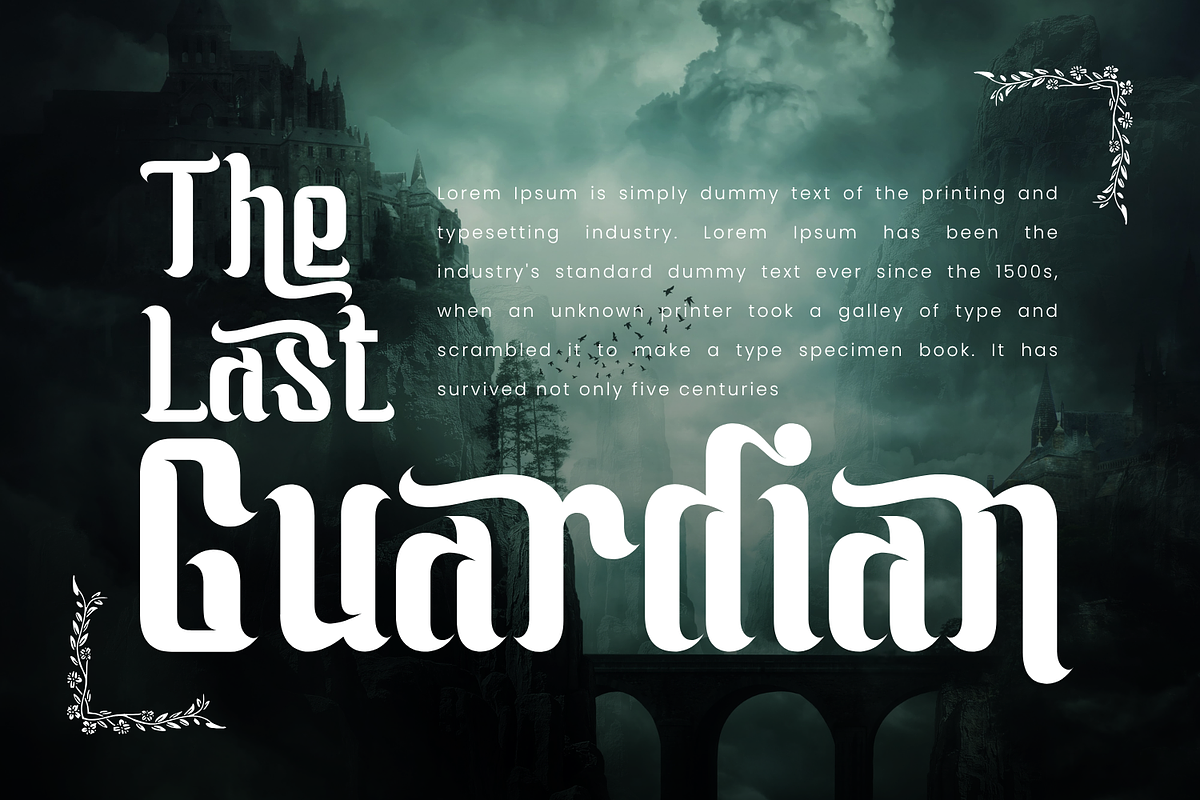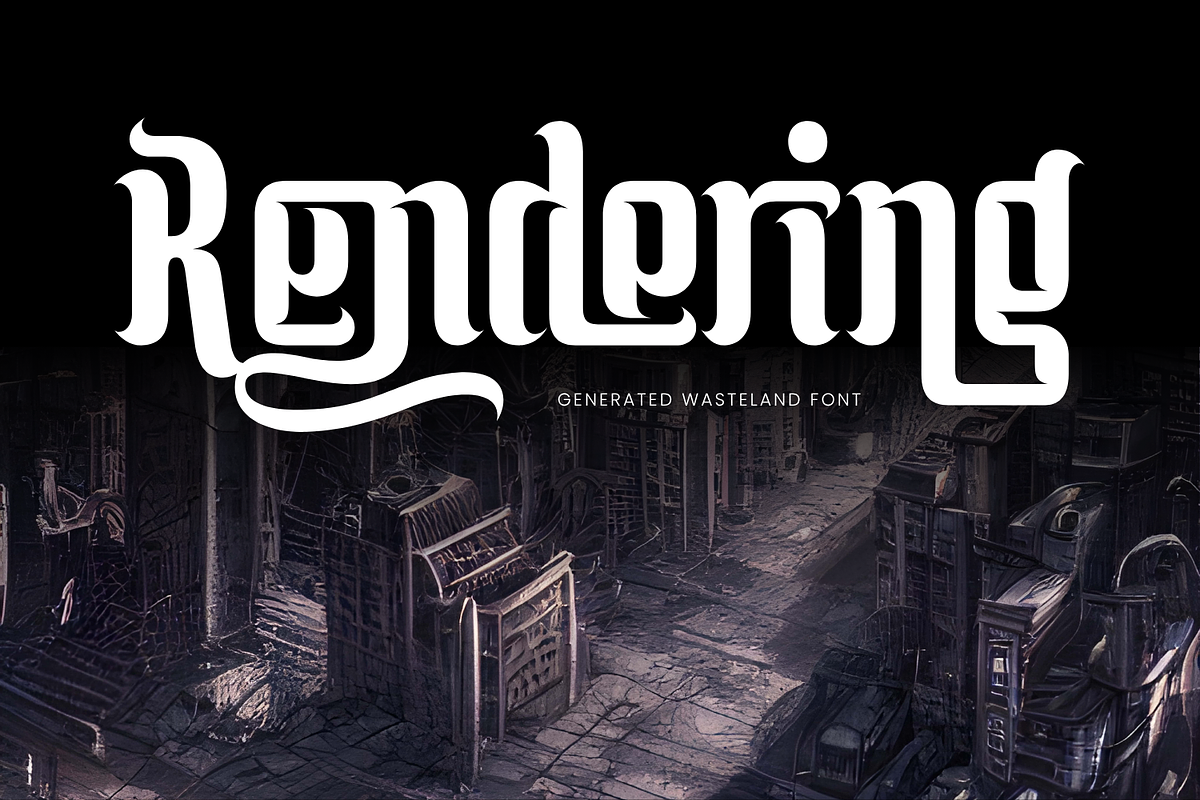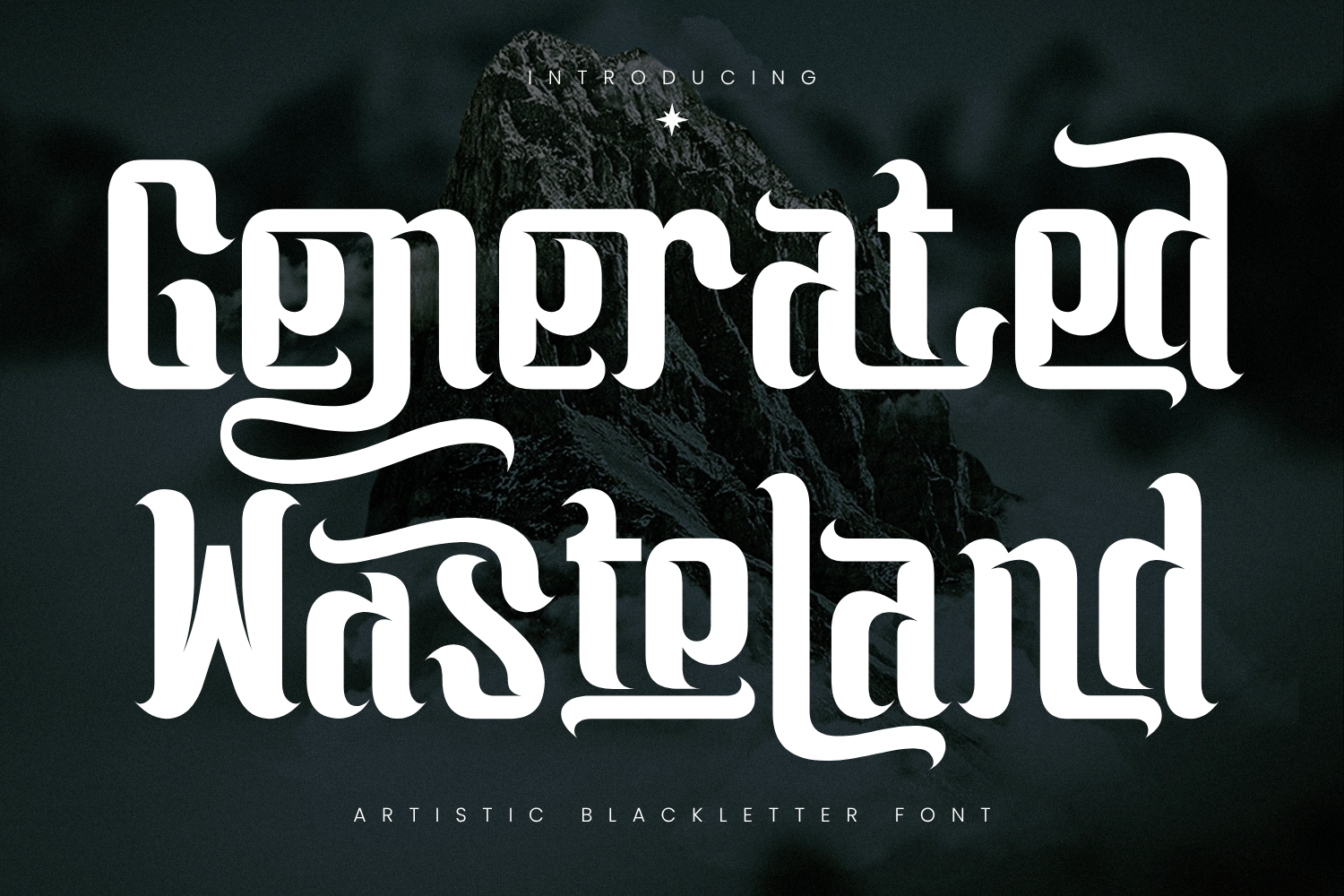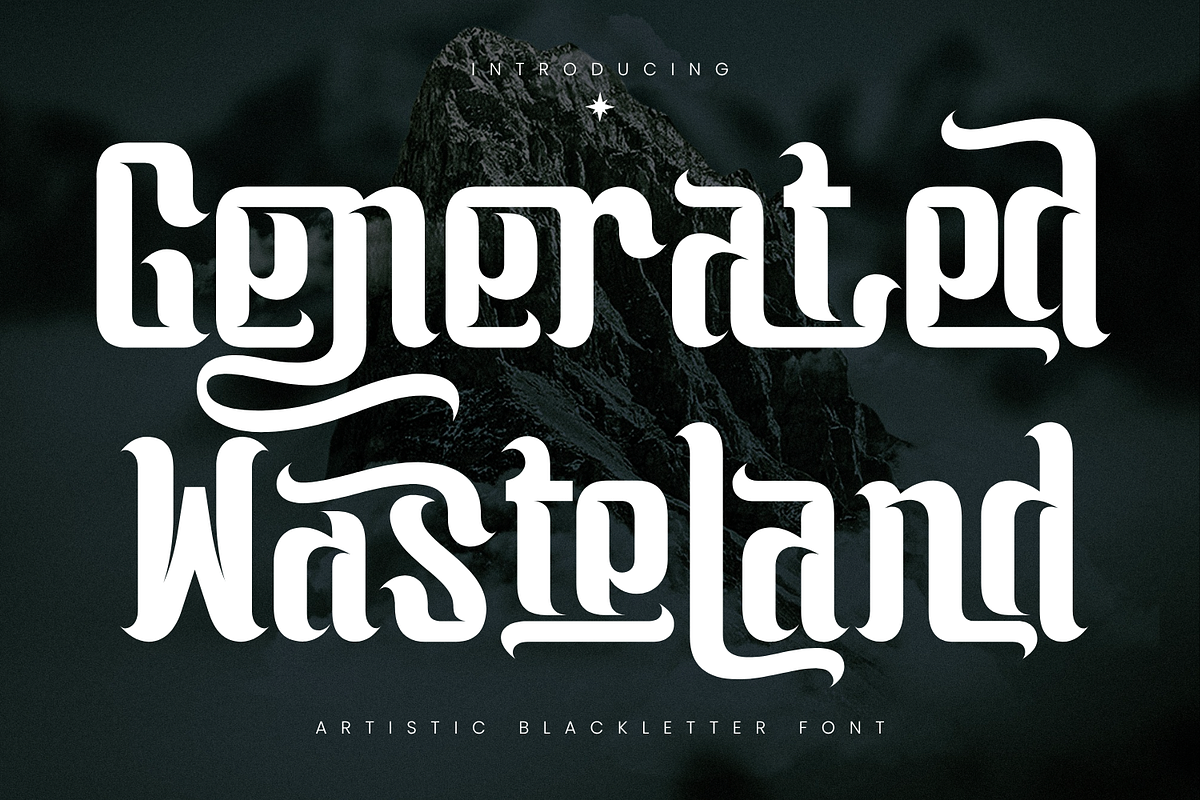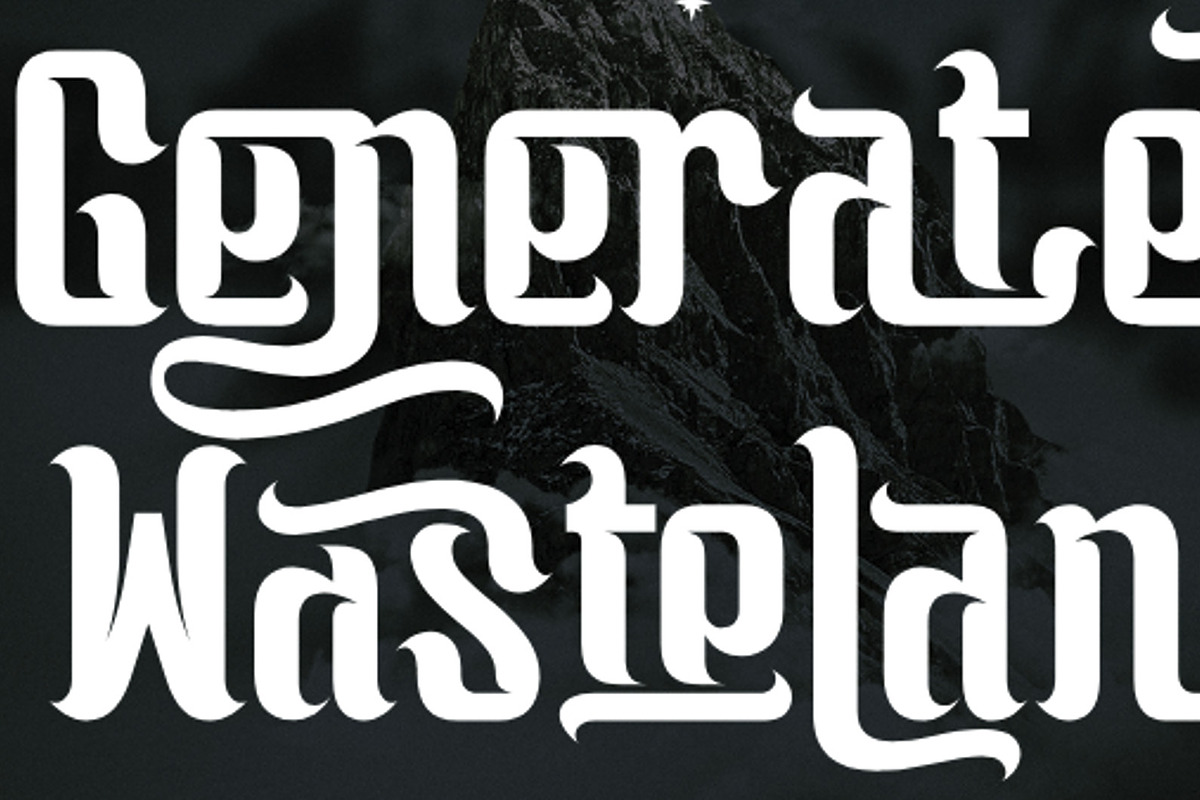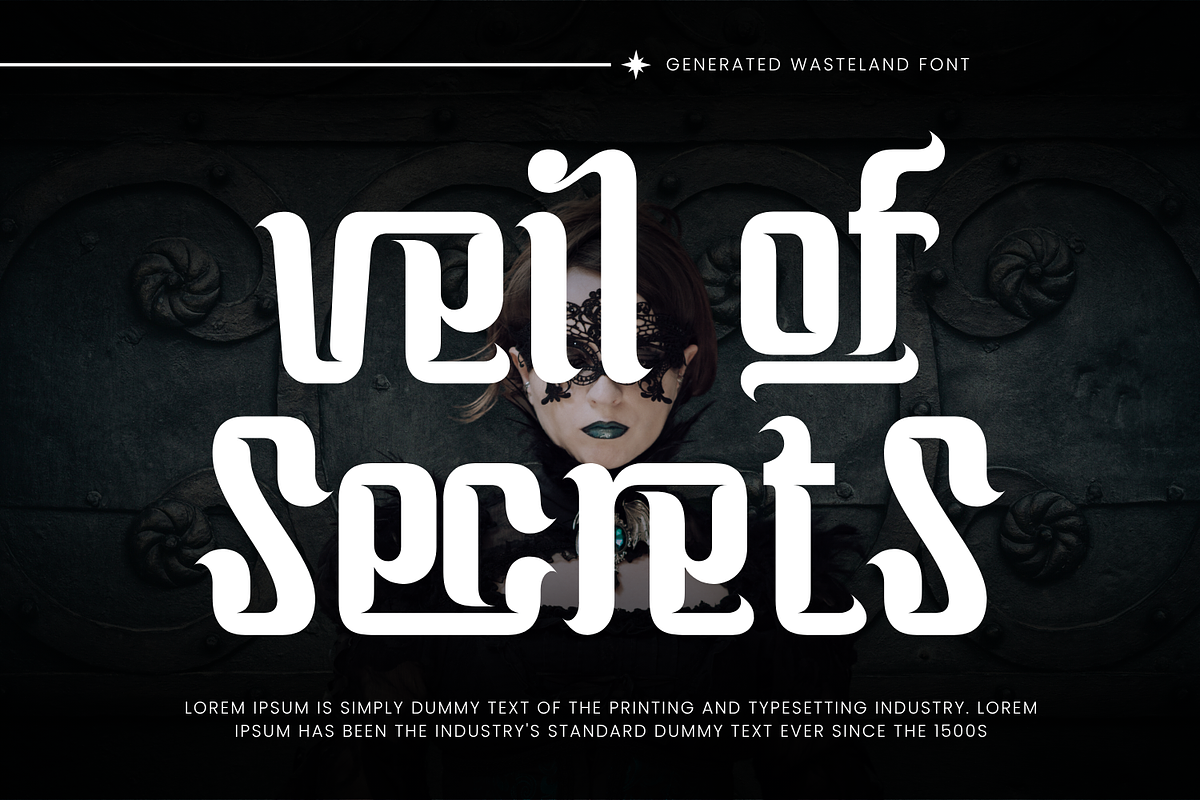
Generated Wasteland - Elegant Font
Generated Wasteland - Elegant Font is an elegant decorative serif display font inspired by vintage calligraphy and medieval typography. Featuring beautifully crafted letterforms with high contrast strokes, this typeface combines classic serif structure with expressive swashes and flowing flourishes. Each character is designed with refined curves and artistic extensions, creating a graceful rhythm and a luxurious visual appeal. The intricate ligatures and ornamental details allow for seamless letter connections, making your text feel fluid and sophisticated.
🔤Features:
Uppercase & Lowercase Letters
Around 100 Special Ligatures & Alternates
Accented Characters for multilingual support
🔤About 100 ligatures combined with Stylistic Alternates Font:
ac ad al an ar as at au av be ca ce ch co ct de di ea ec ed ee el em en ep er es et fe fo fr ge ha he hi ho ie ic il in io ir is it ju ke la le li ll lo ly ma me mi nc nd ne ng no nt ns oc of om on oo op or ot ou ow pa pr ra rd re ri ro rs rt se sh si so ss st ta te th ti to tr tt um un ur ve wi wo